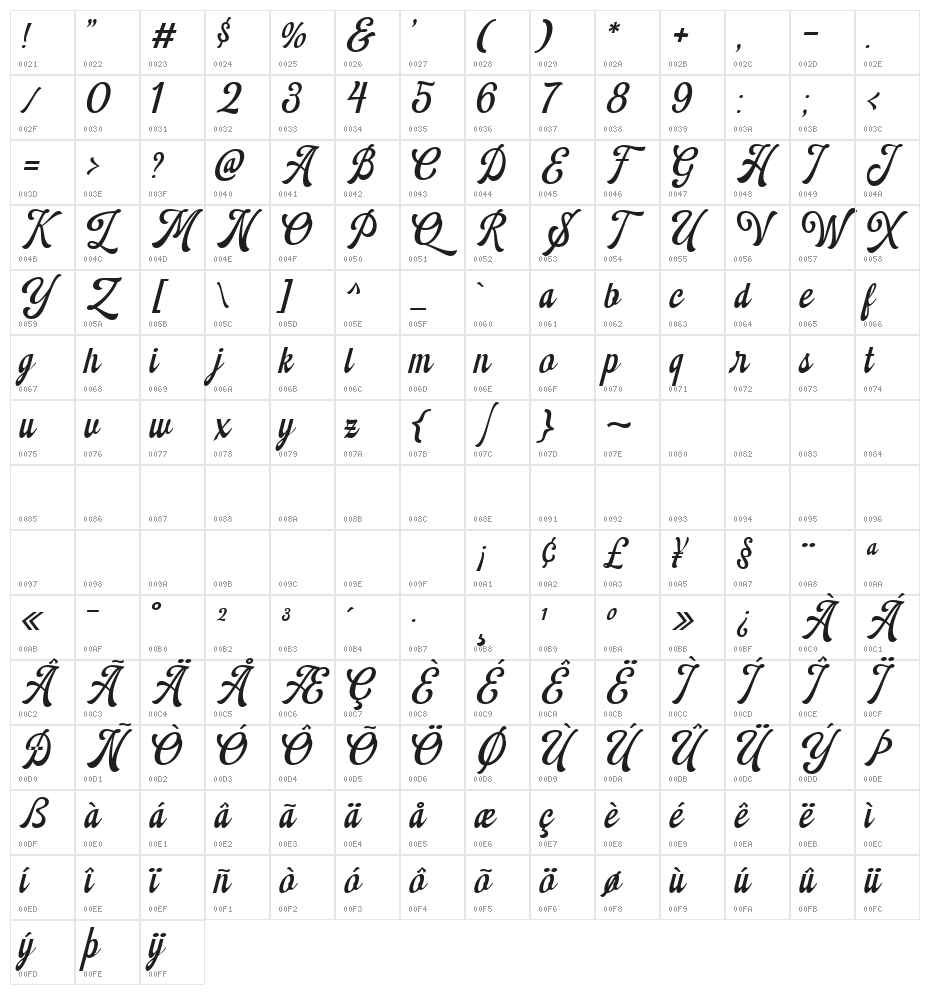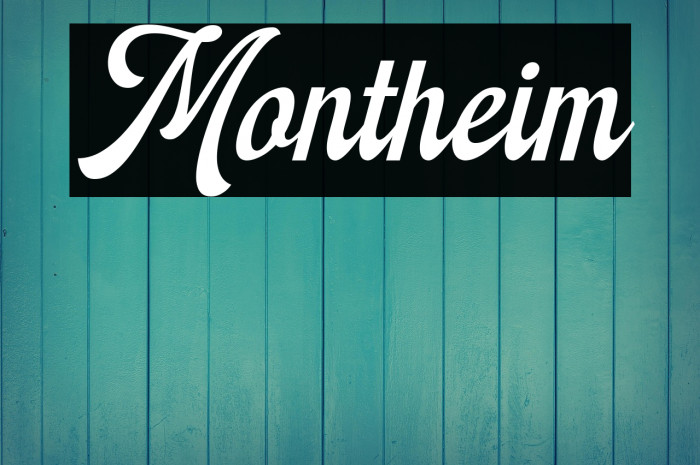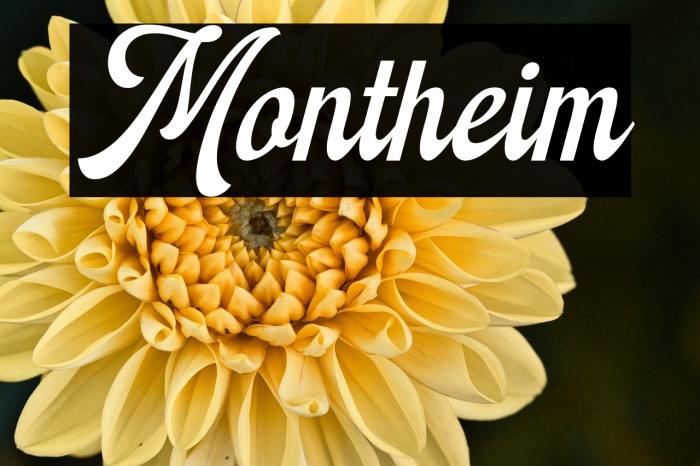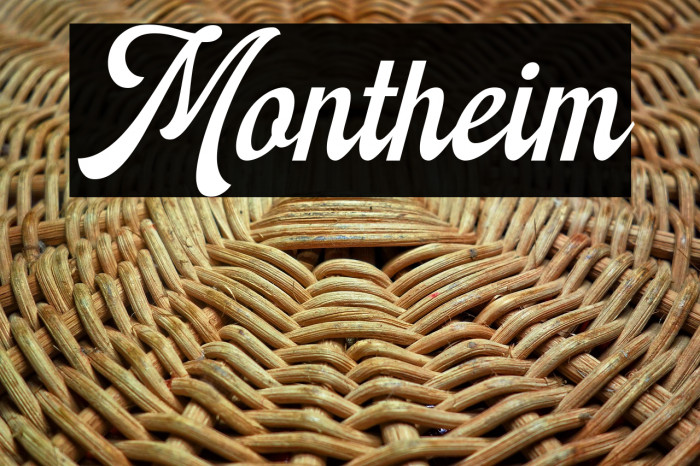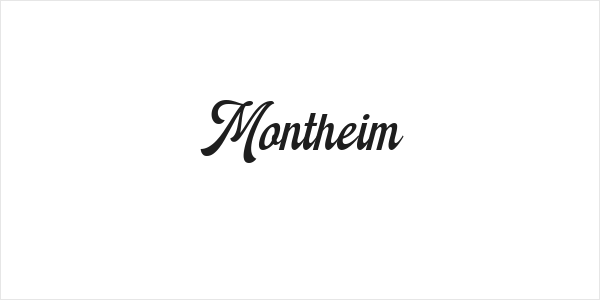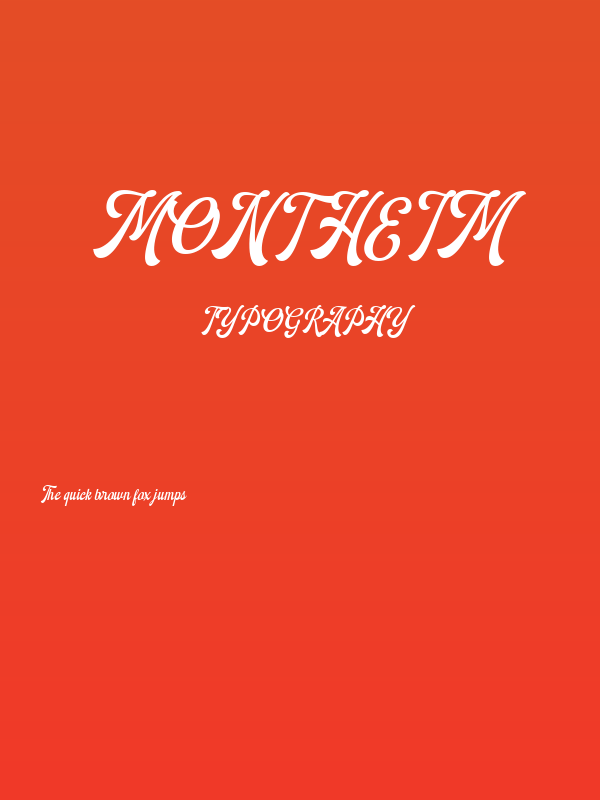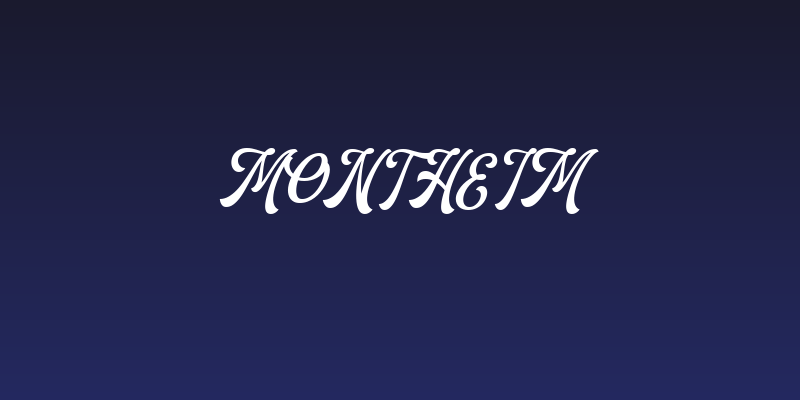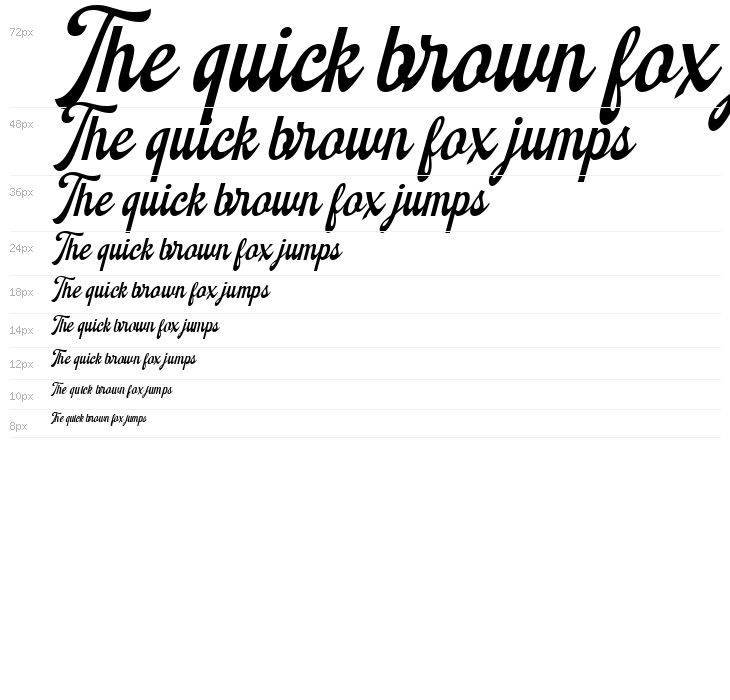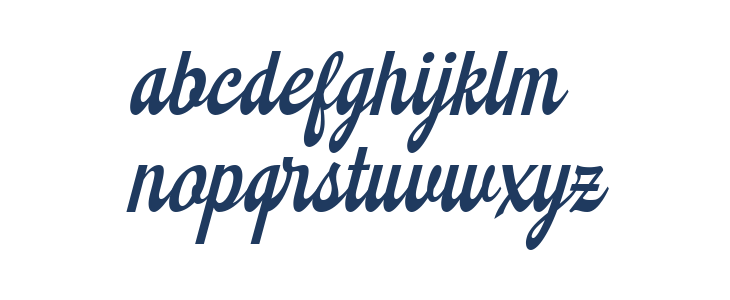
Montheim Font
Montheim Description
This elegant script font features a flowing, cursive style with smooth, connected strokes that give it a sophisticated and graceful appearance. The uppercase letters are ornate and slightly slanted, while the lowercase letters maintain a consistent flow, enhancing readability. The numerals are bold and curvaceous, complementing the overall aesthetic. Special characters are designed with the same attention to detail, ensuring a cohesive look across all glyphs. This font exudes a sense of elegance and formality, making it suitable for upscale design projects.
| Proposed Projects | Ideal for wedding invitations, luxury branding, elegant signage, and formal event materials. |